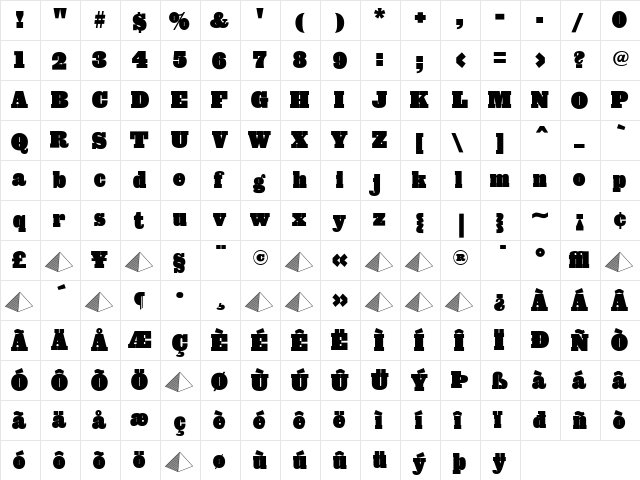
Giza Regular
Design Context for Giza Typeface
Giza offers clean, dependable letterforms without strong stylistic allegiance, making it a practical choice for designers who need flexibility.